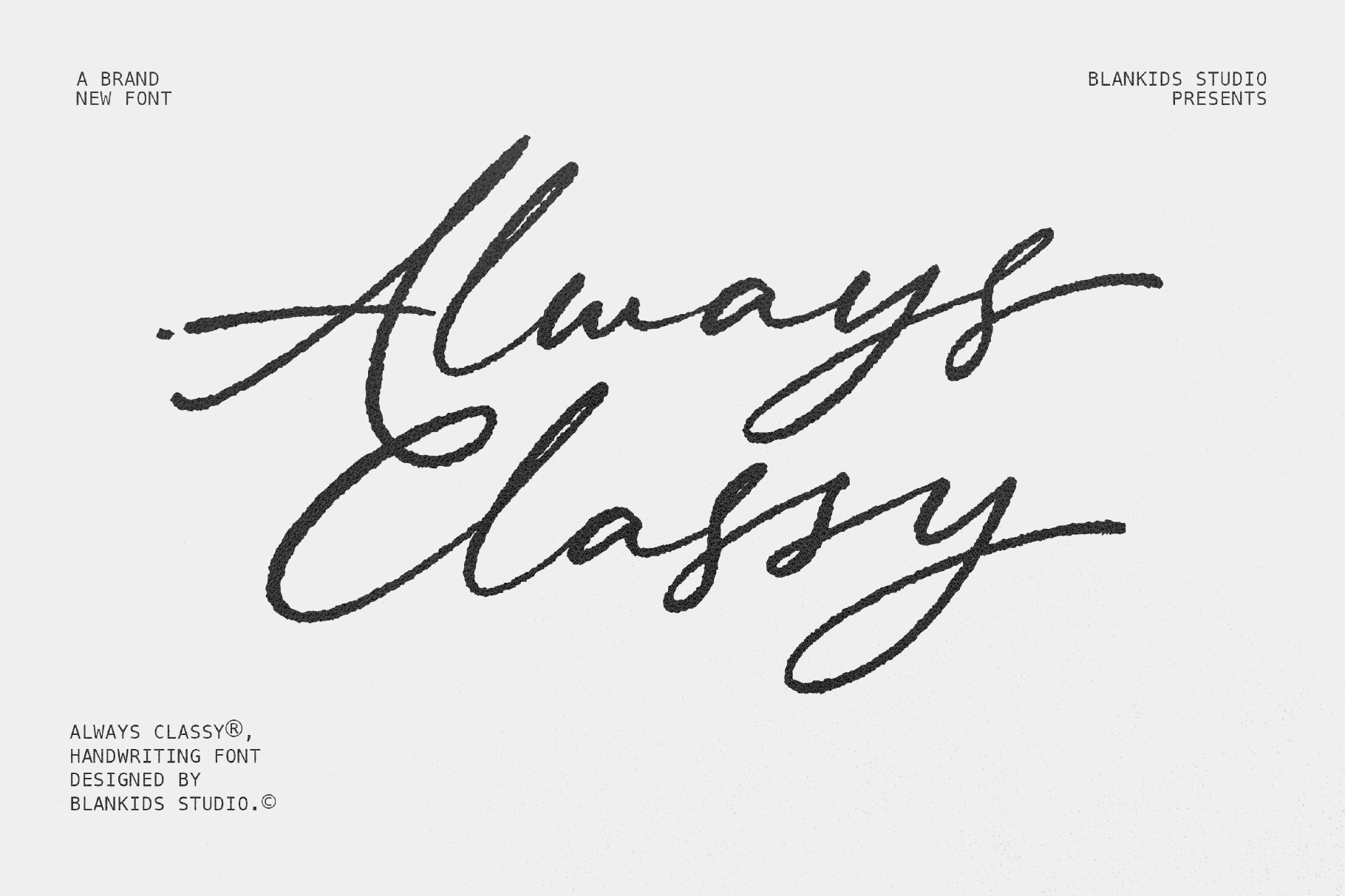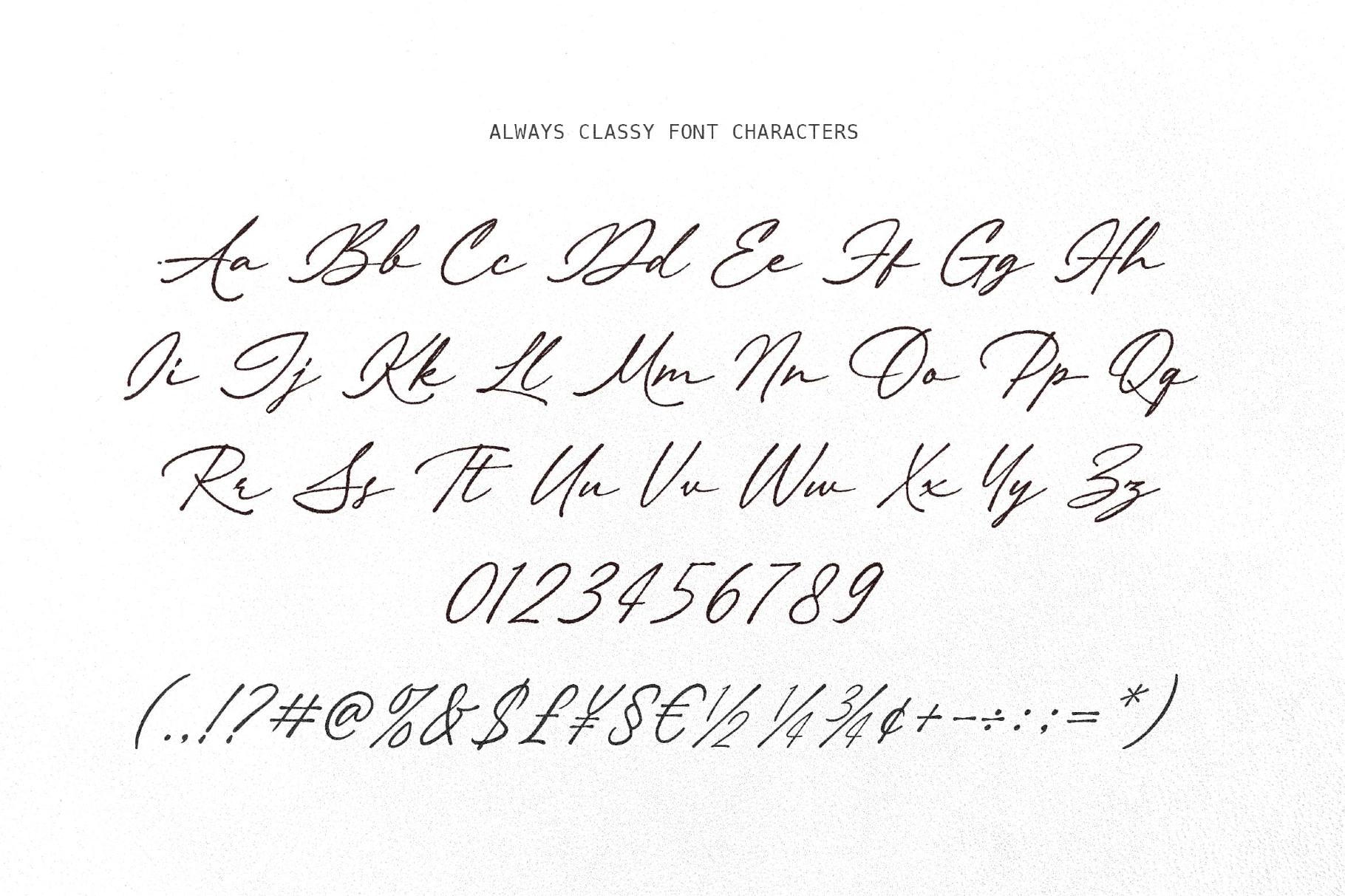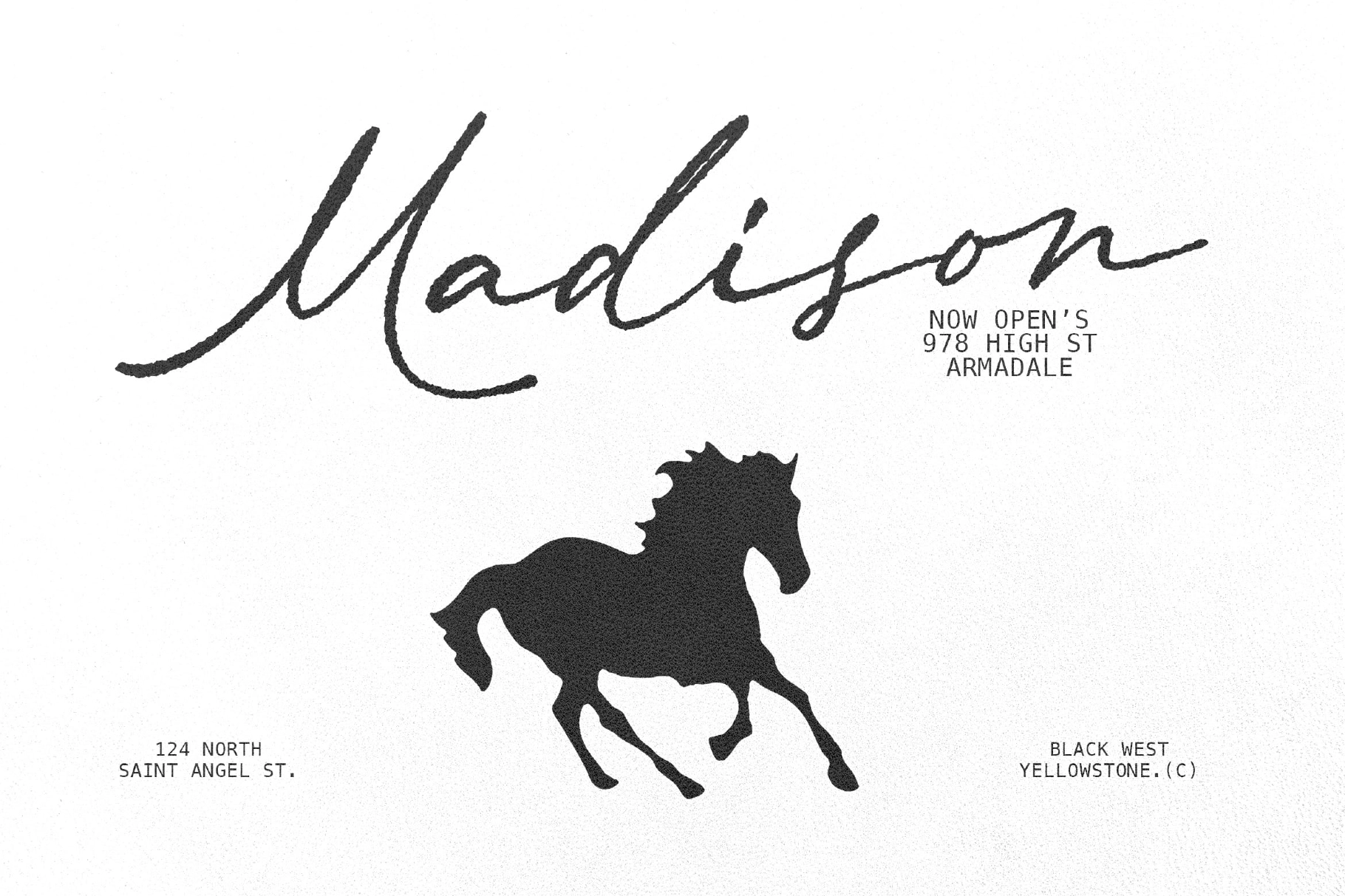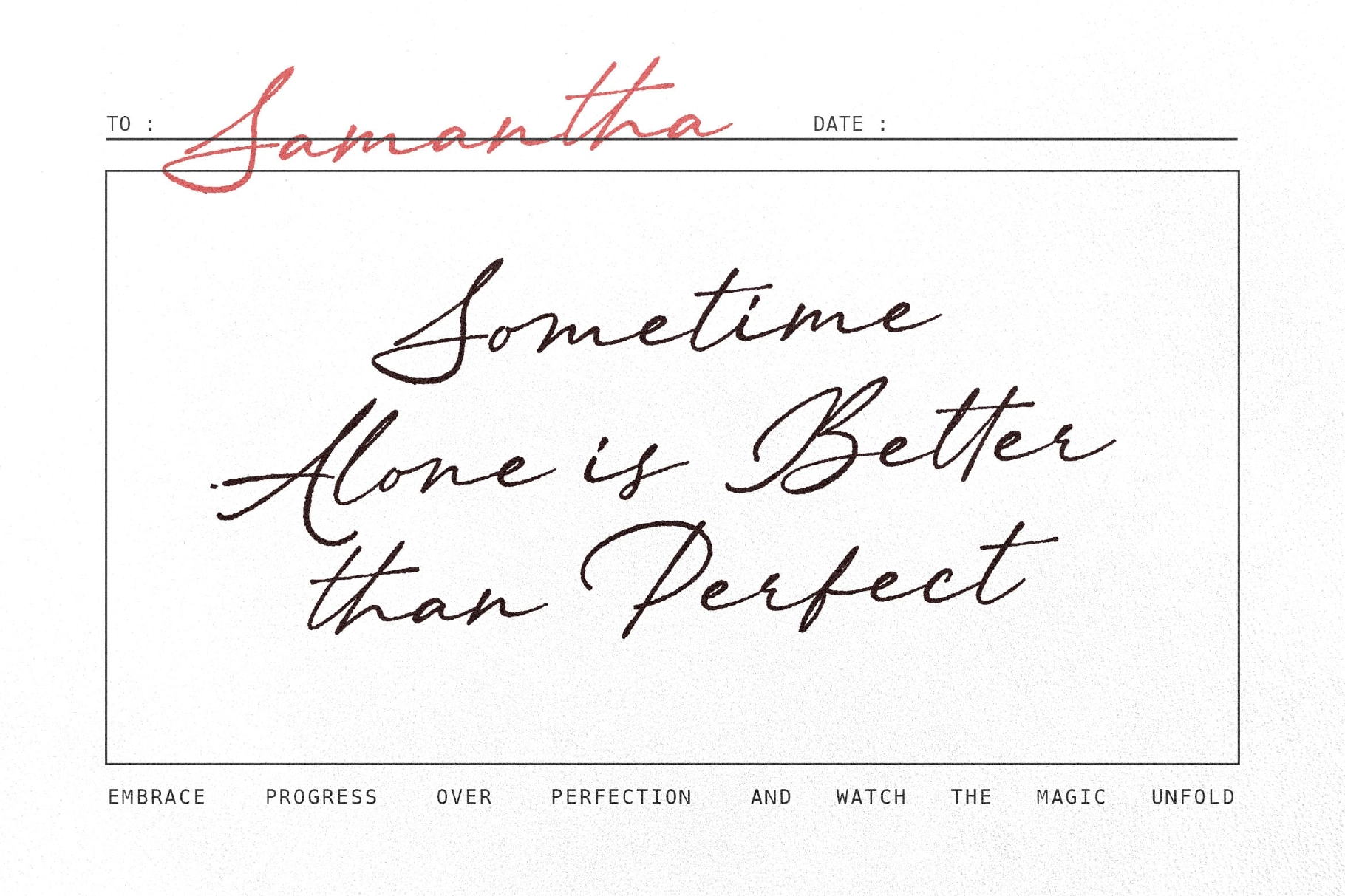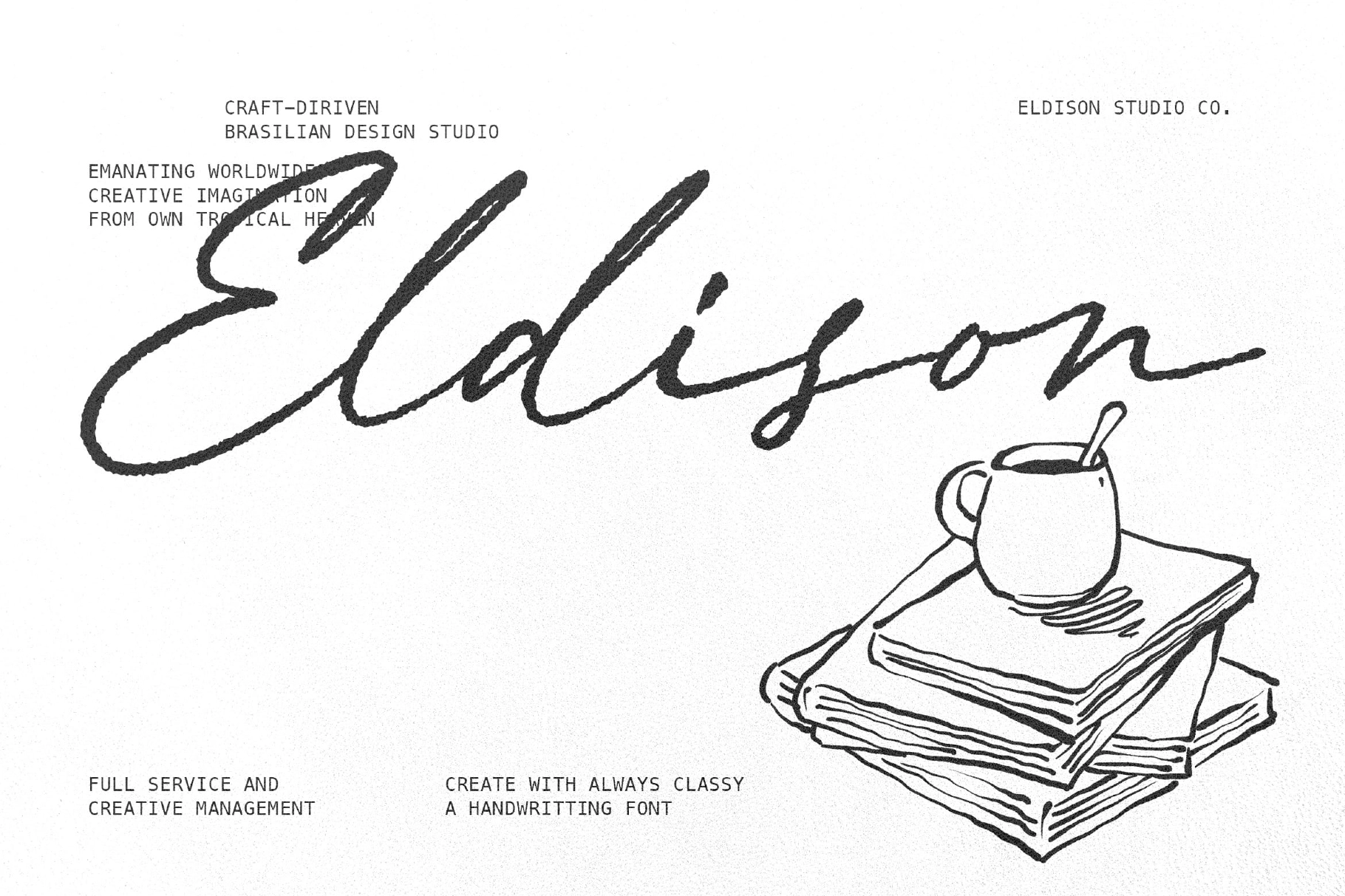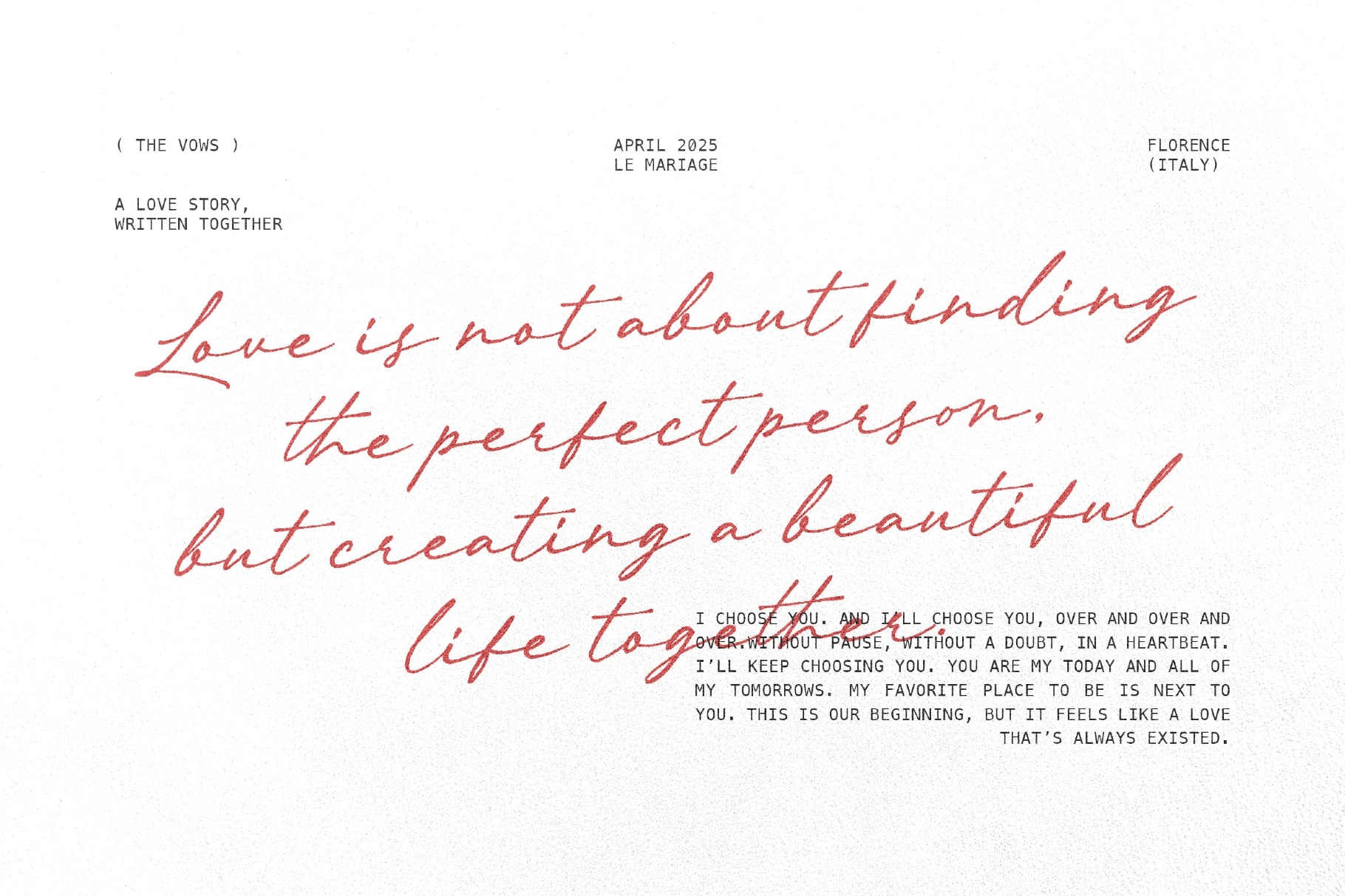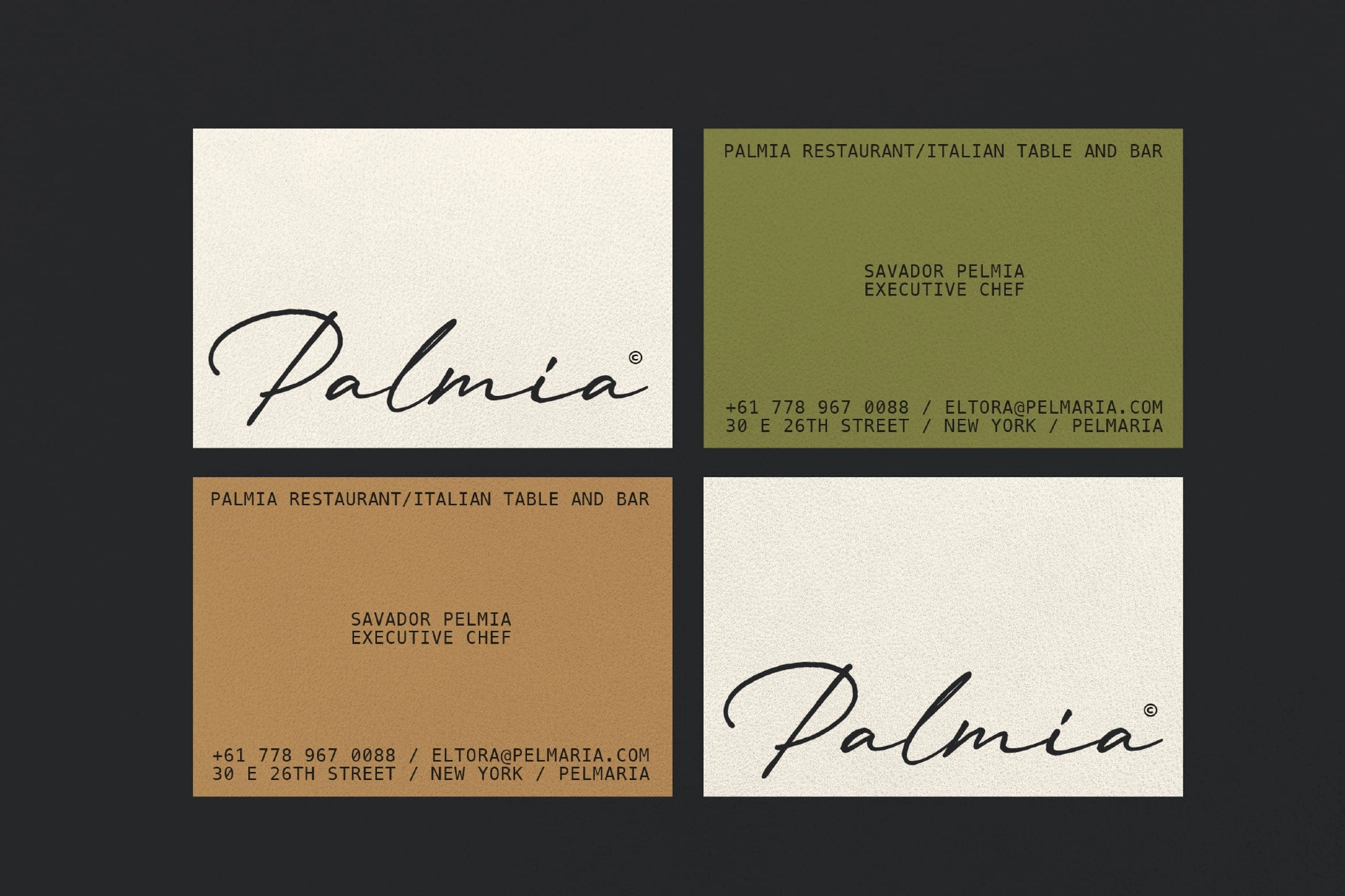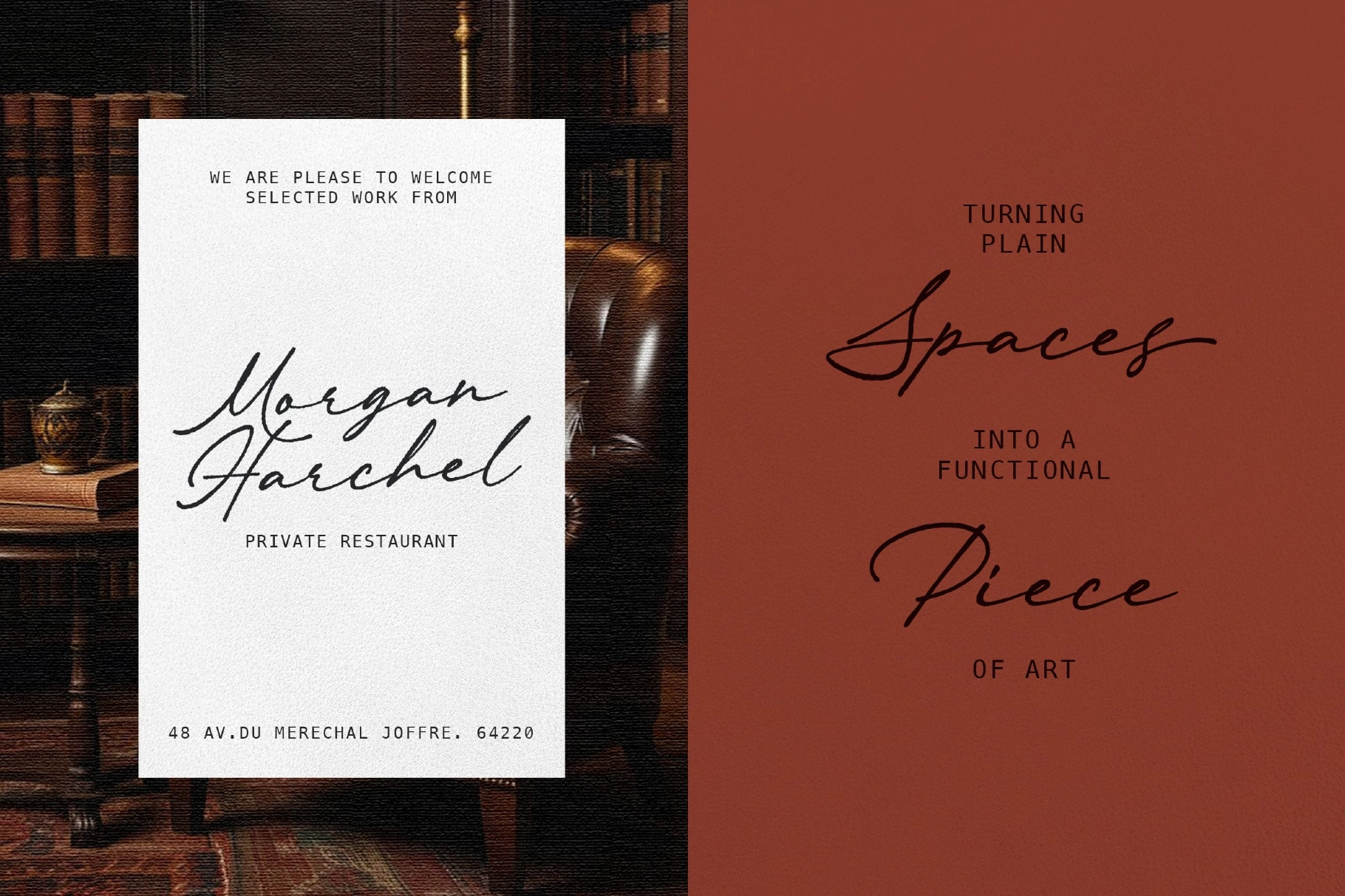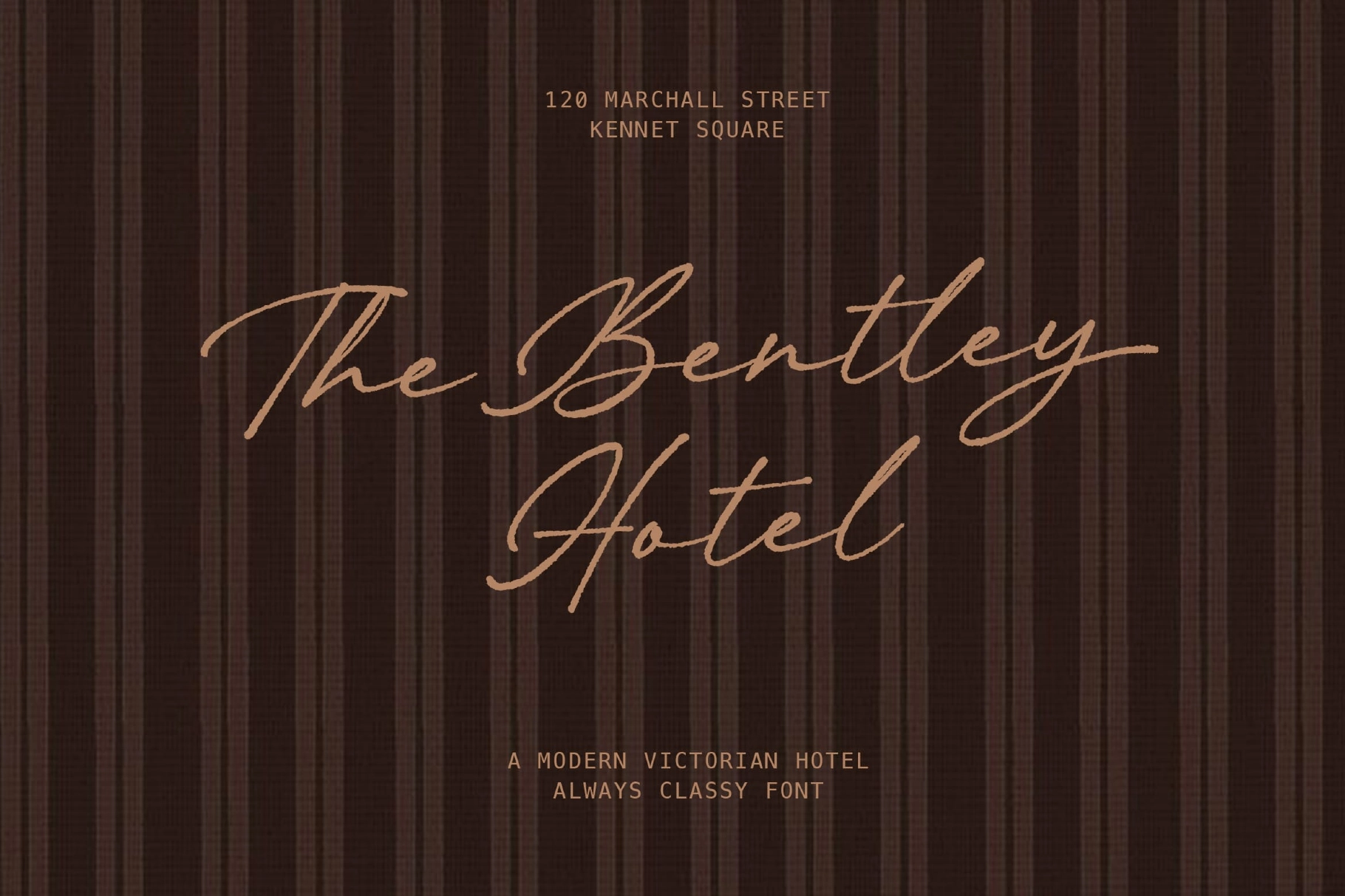
Always Classy – Elegant Handwritten Font
Always Classy
Rough
A graceful handwritten script with sweeping strokes, soft contrast, and a polished signature rhythm. The lettering is elegant without acting precious — thin upstrokes, confident loops, and long entry lines give each word a personal, composed character.
Always Classy is made for wedding invitations, vow books, greeting cards, logo marks, beauty packaging, boutique branding, social media quotes, editorial headers, café menus, product labels, thank-you notes, and romantic stationery. It brings a refined handwritten voice to print and digital designs that need charm, clarity, and a little ceremony.
- Stylish ligatures
- Handwritten script style